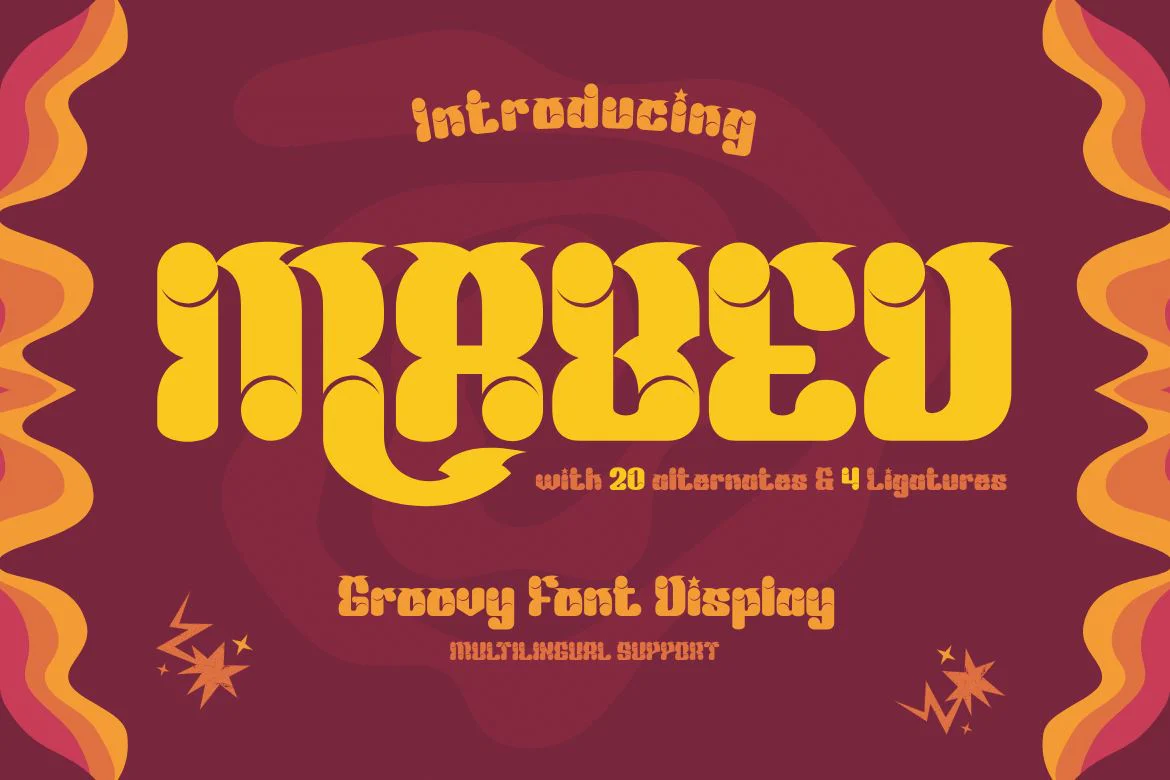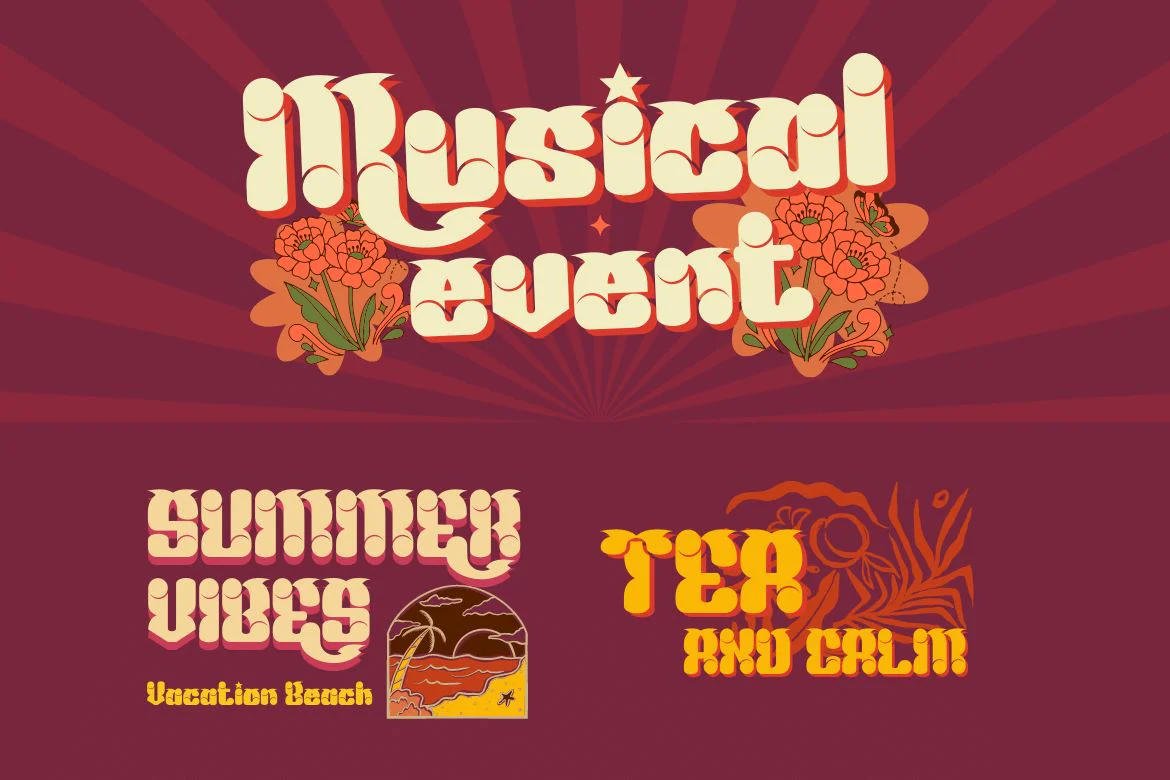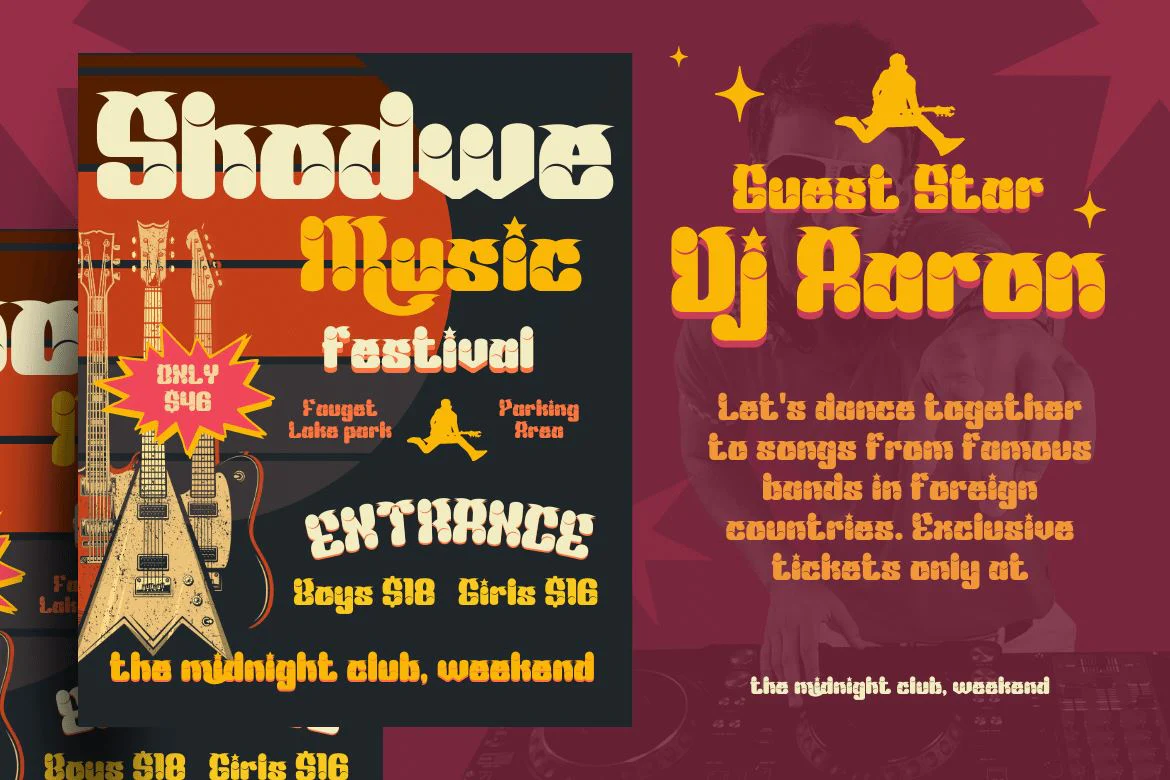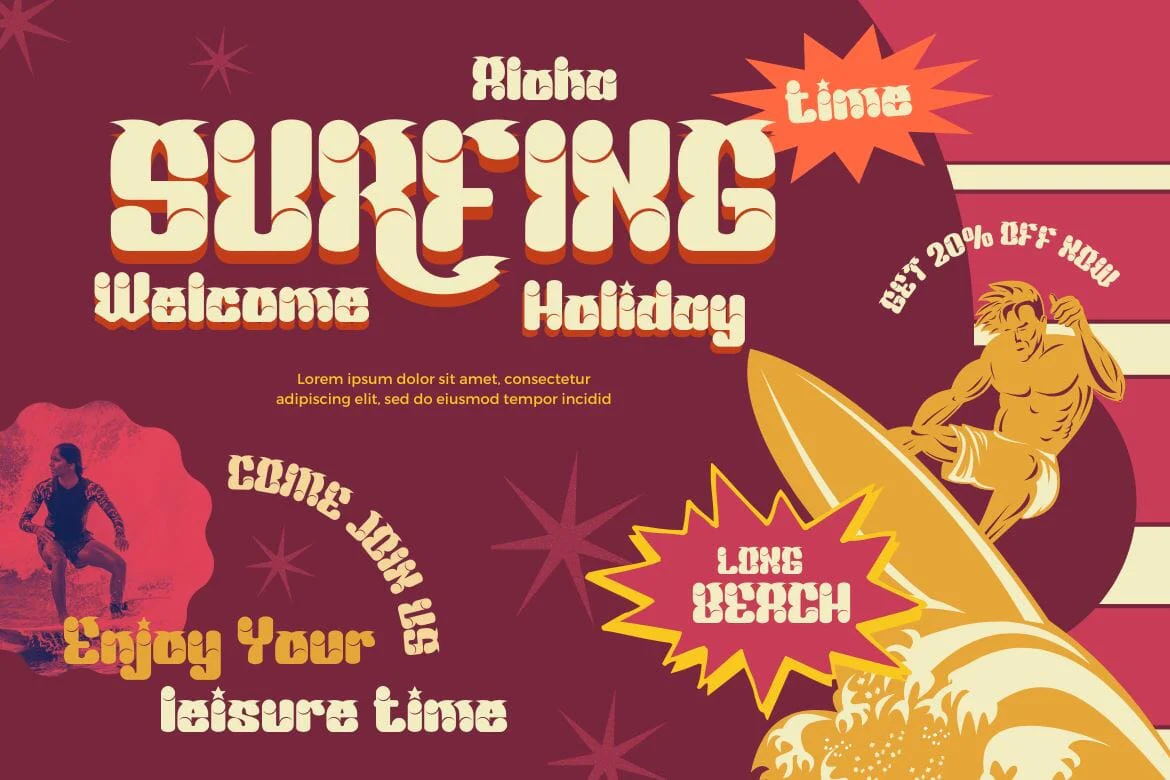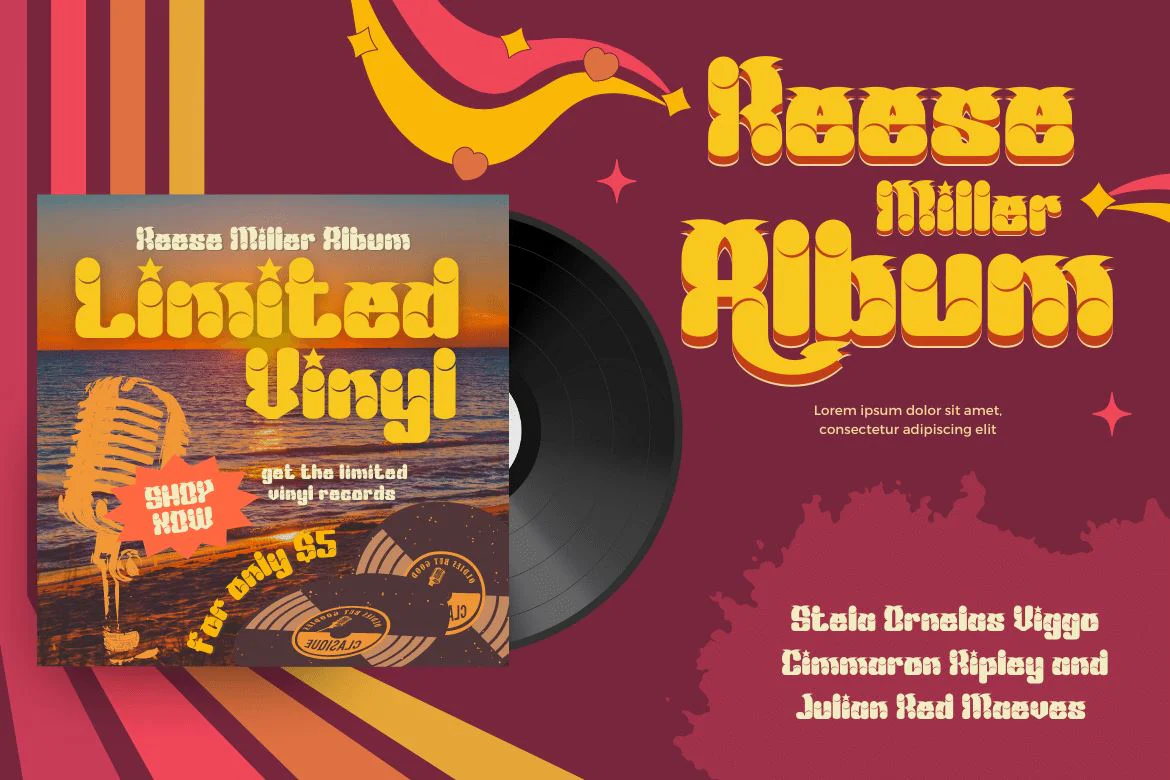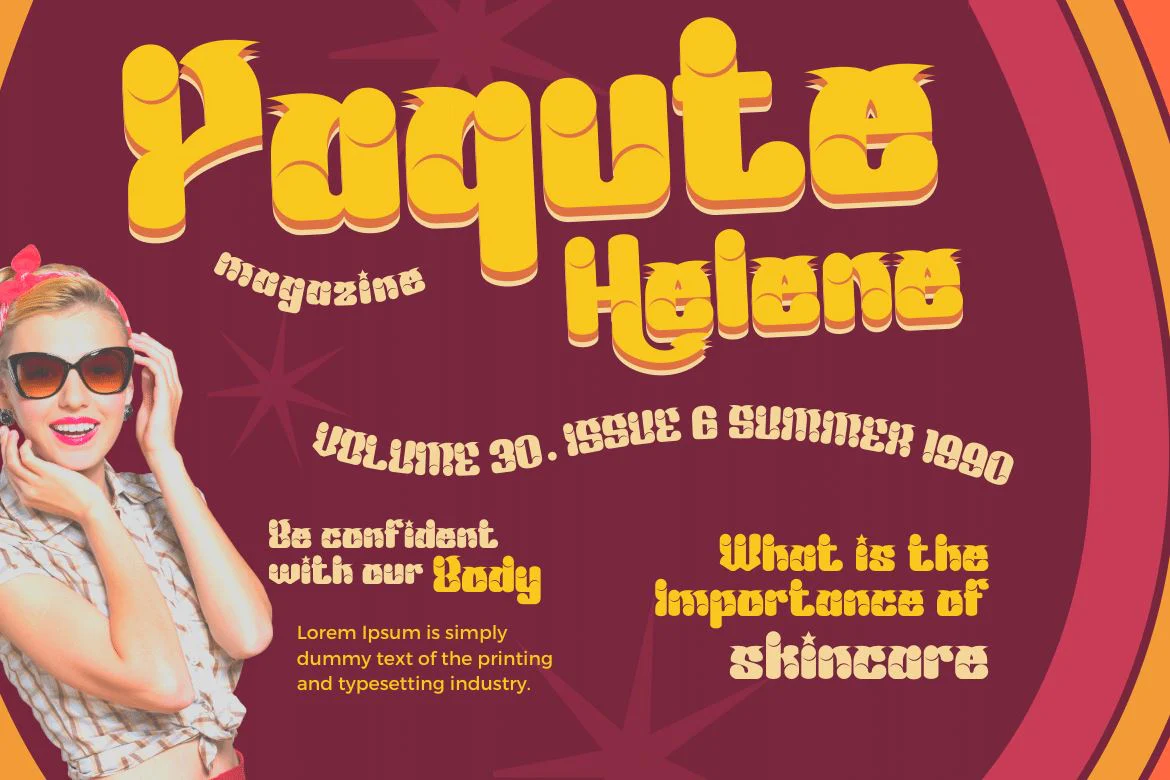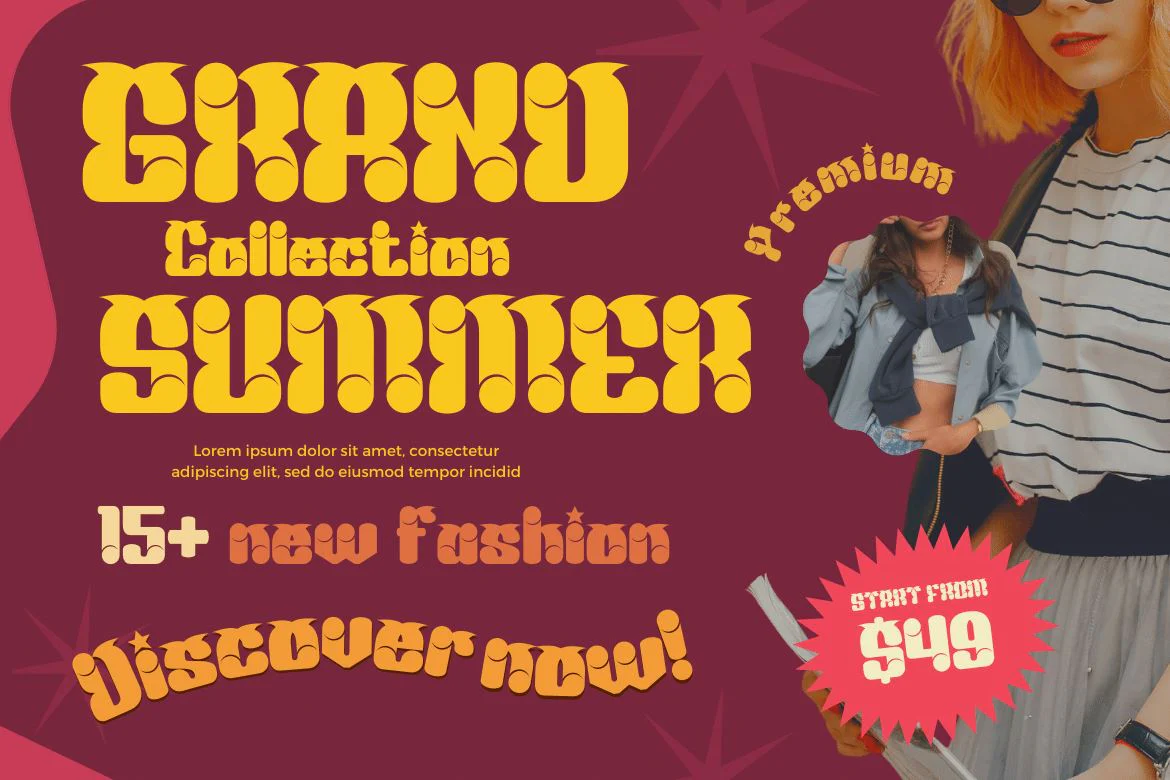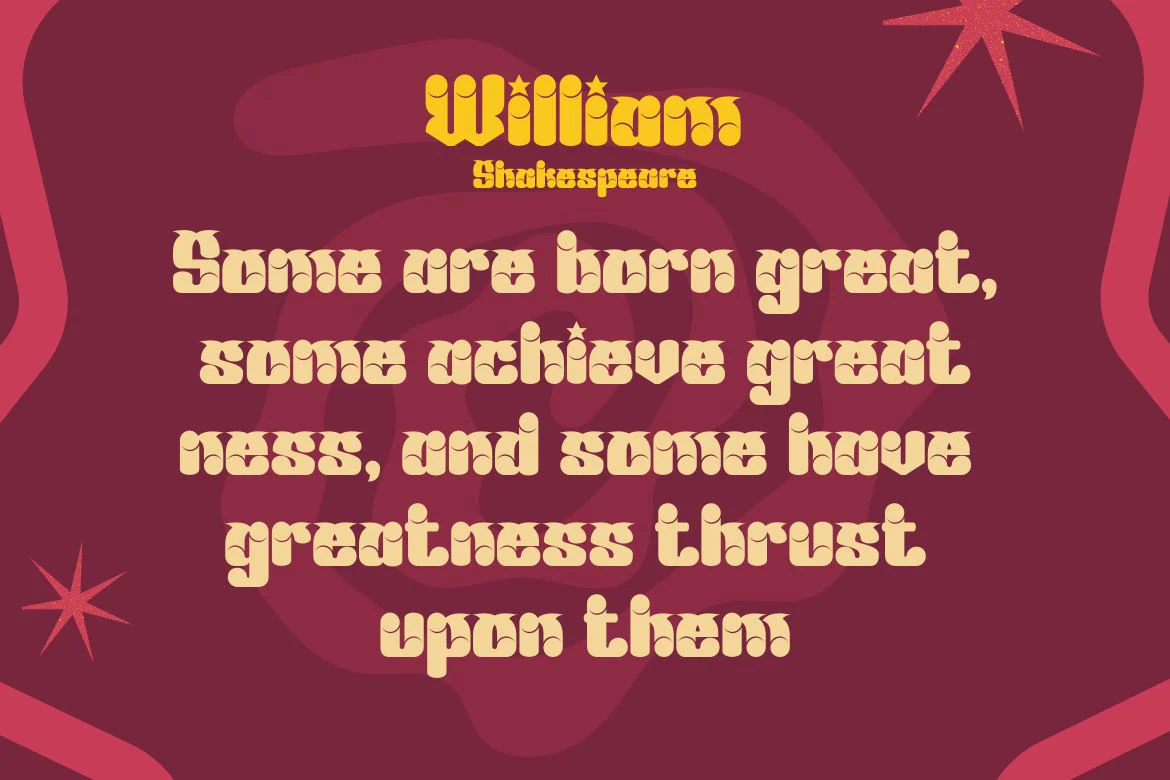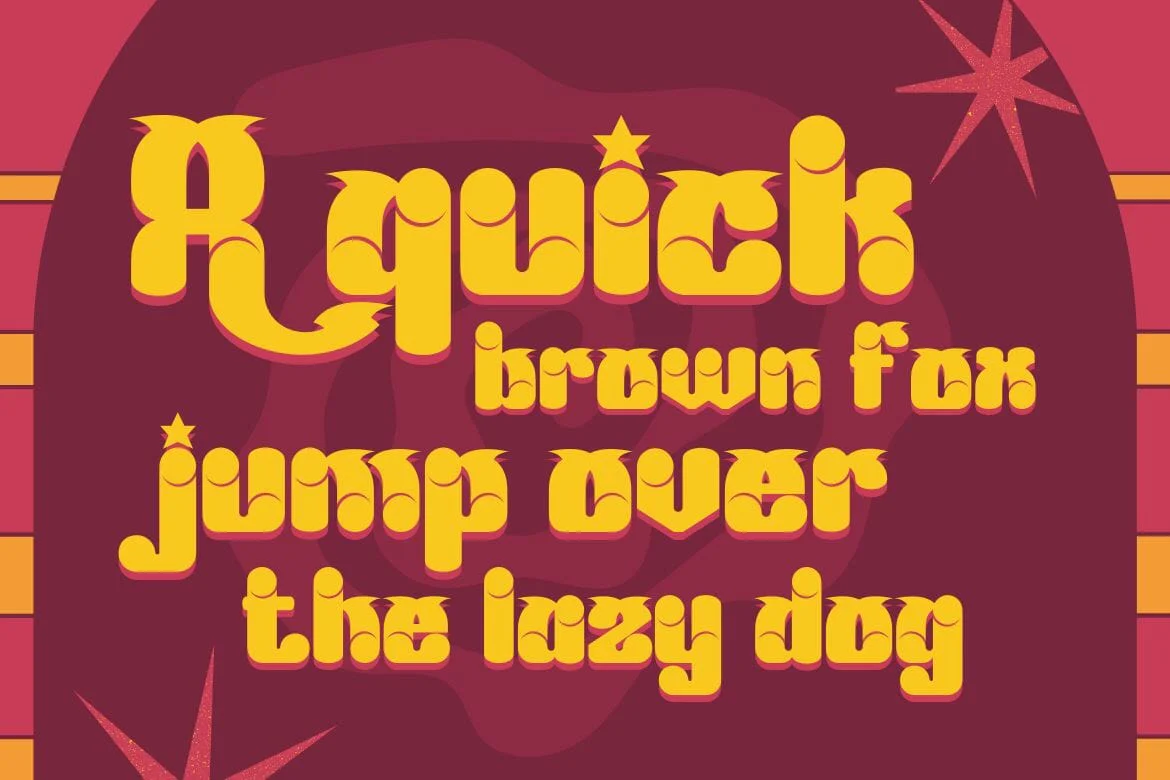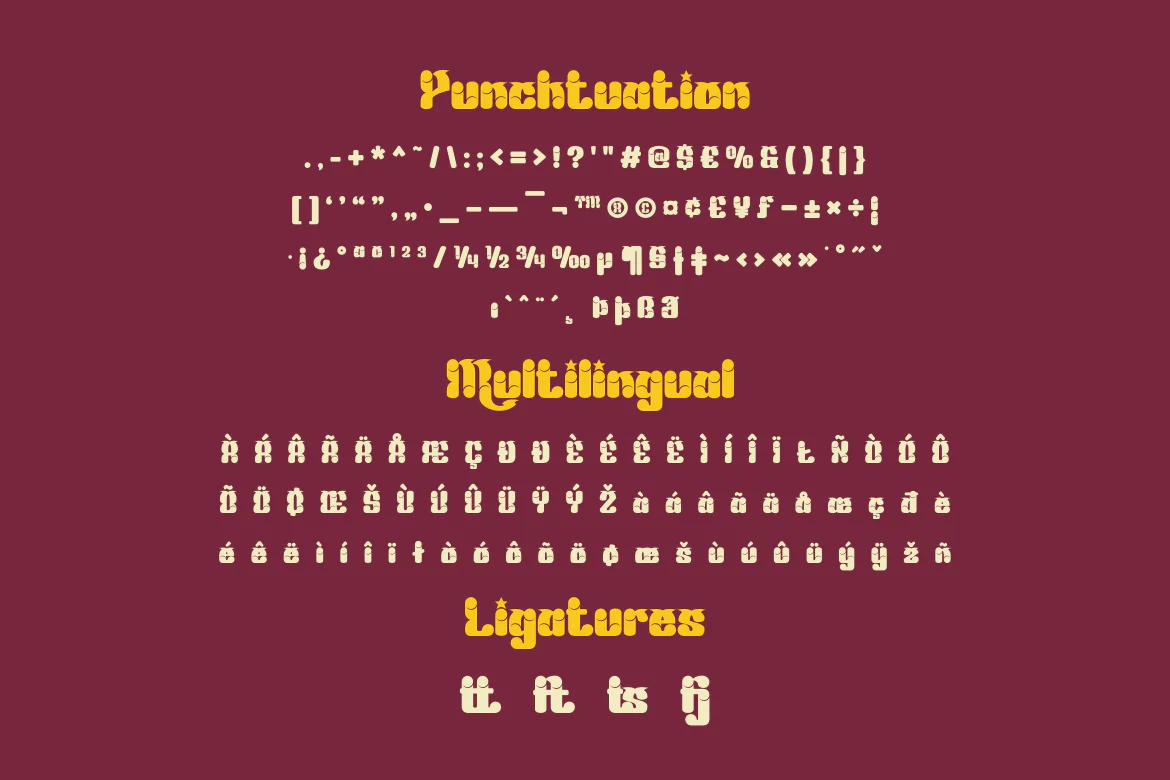
Mabed | Groovy Retro Font
Mabed is a psychedelic font, but it’s not just a retro font. This is a special font inspired by the classic 60’s style. Your projects will be both vintage and fun using this font, create your coolest designs with a super psychedelic vibe with a style that stands out from the crowd.